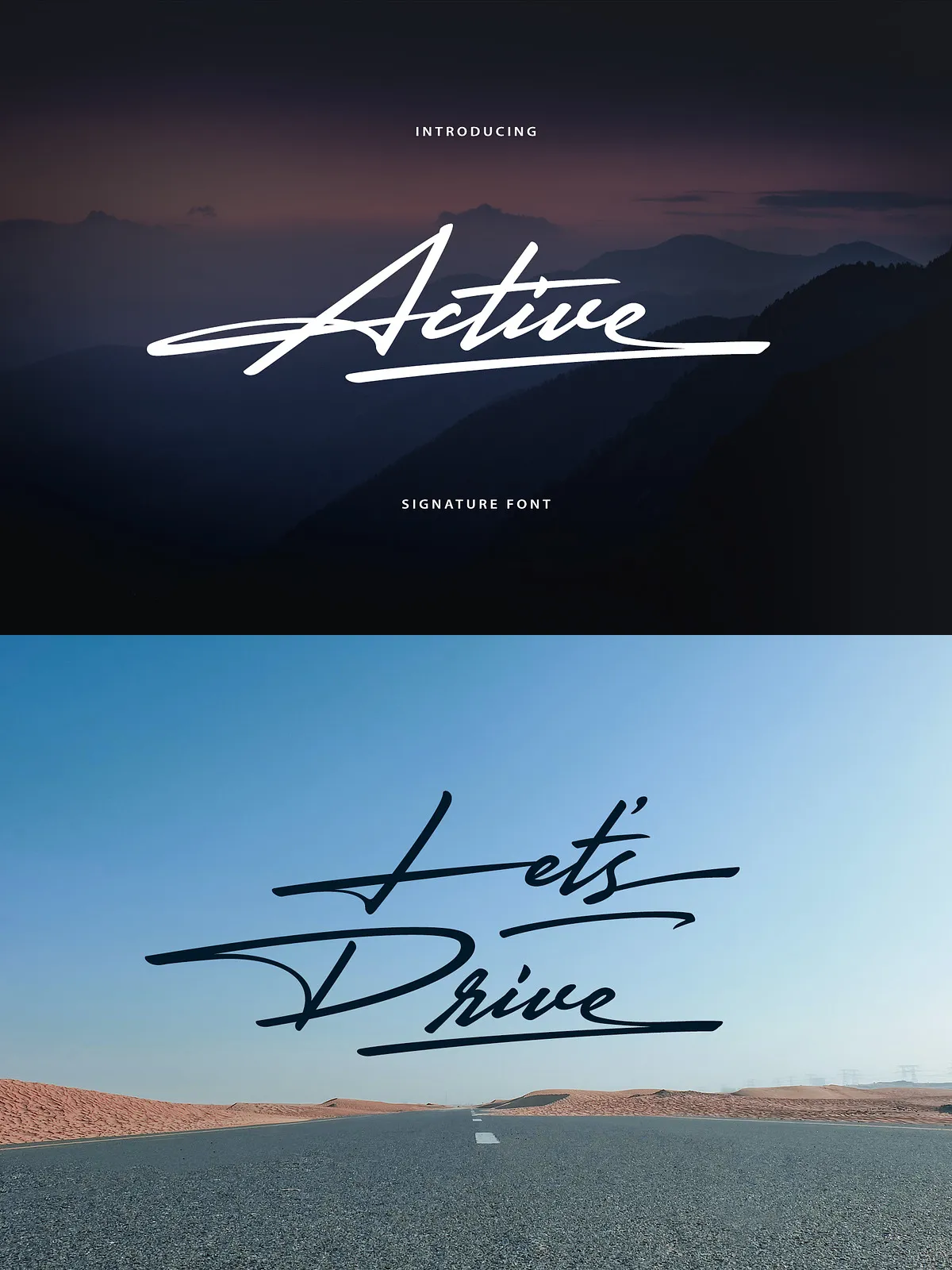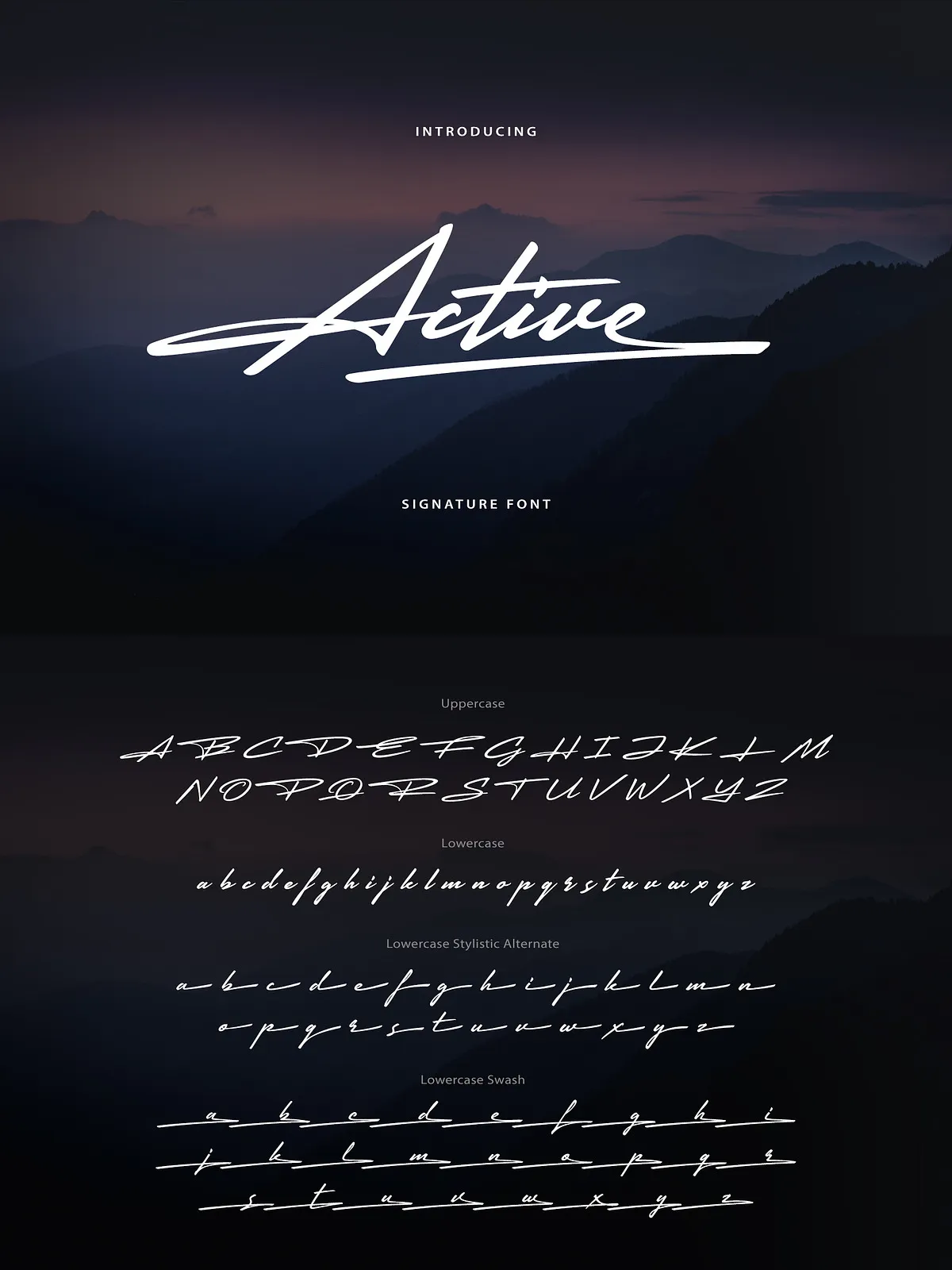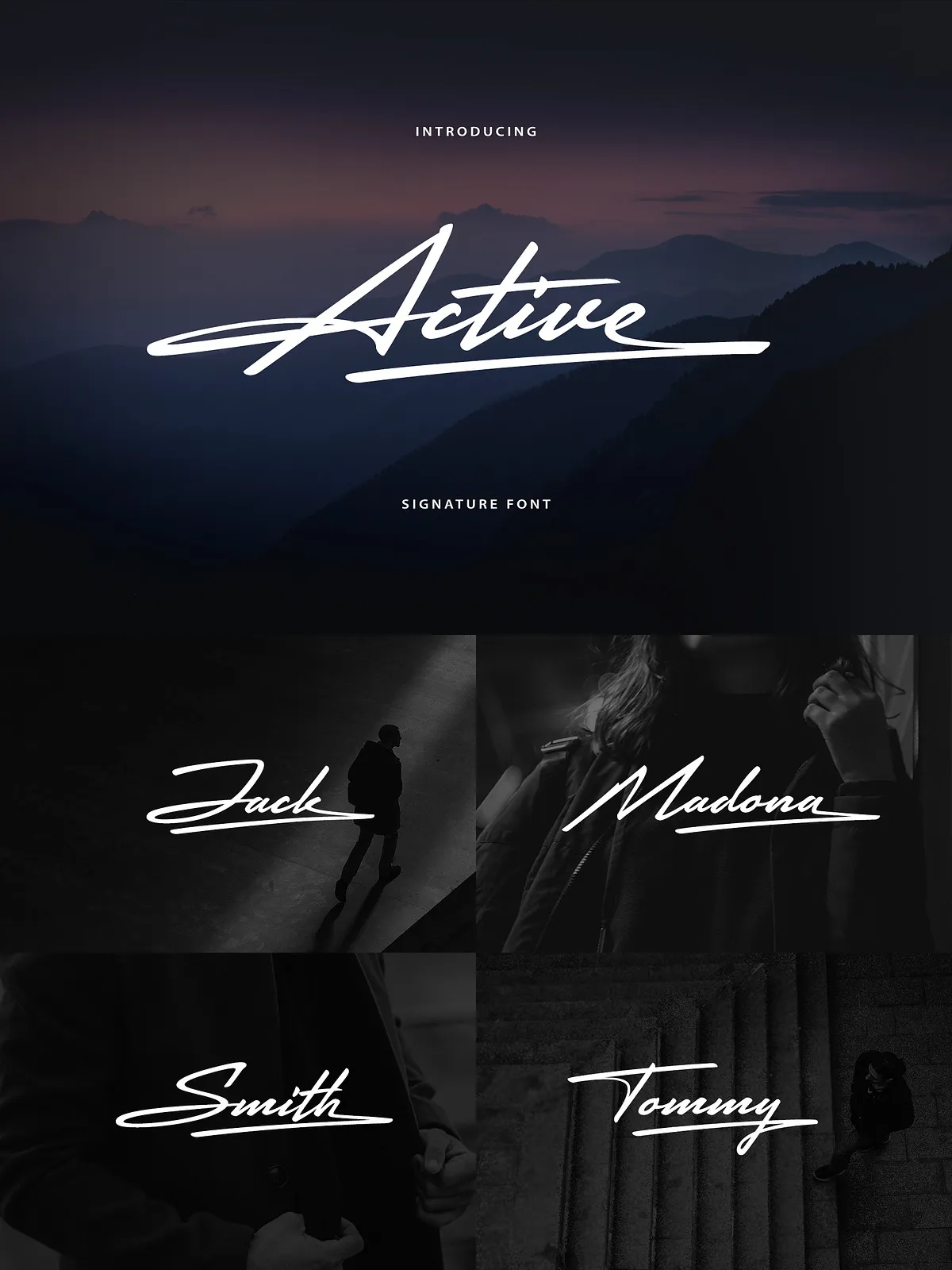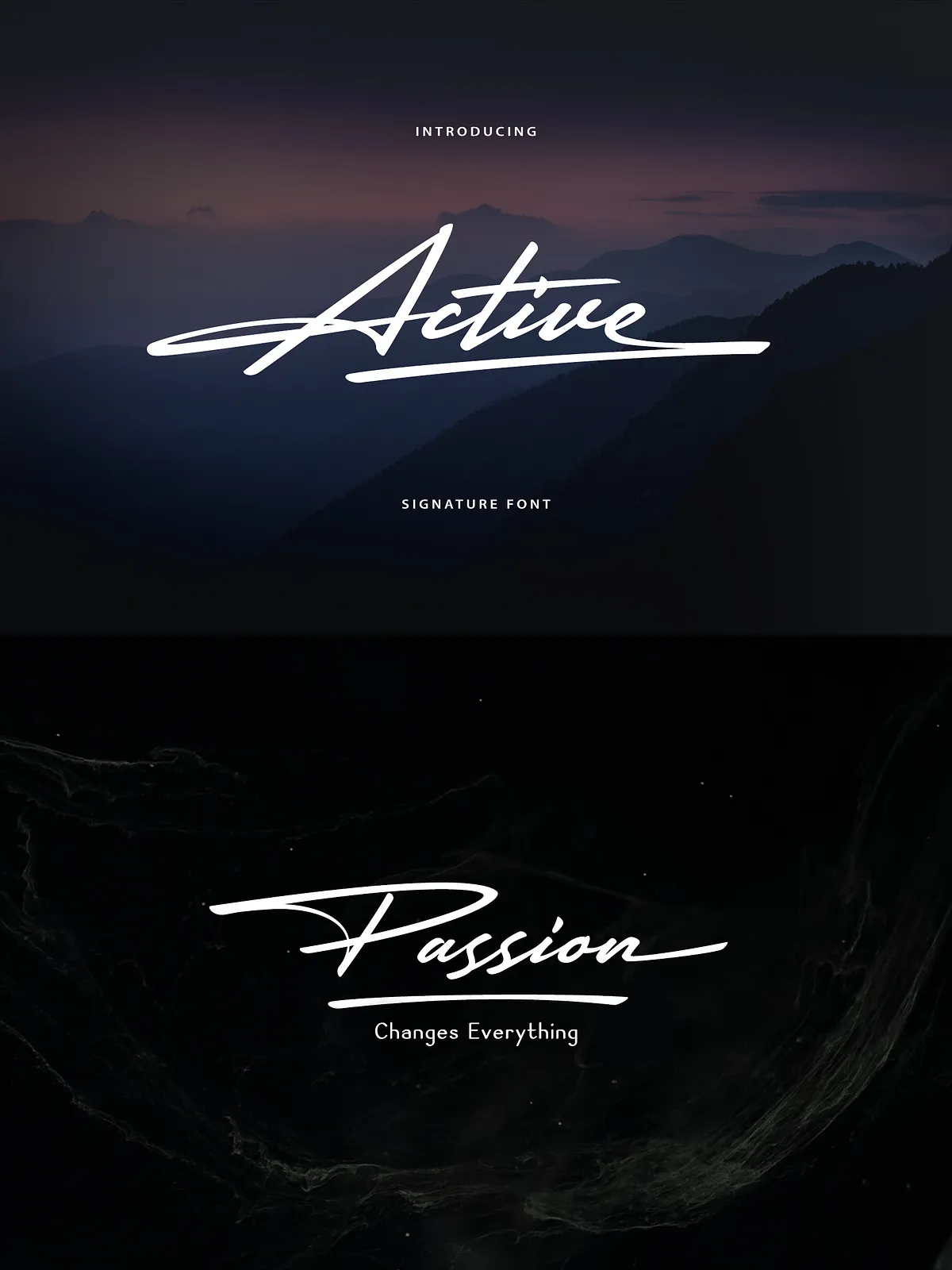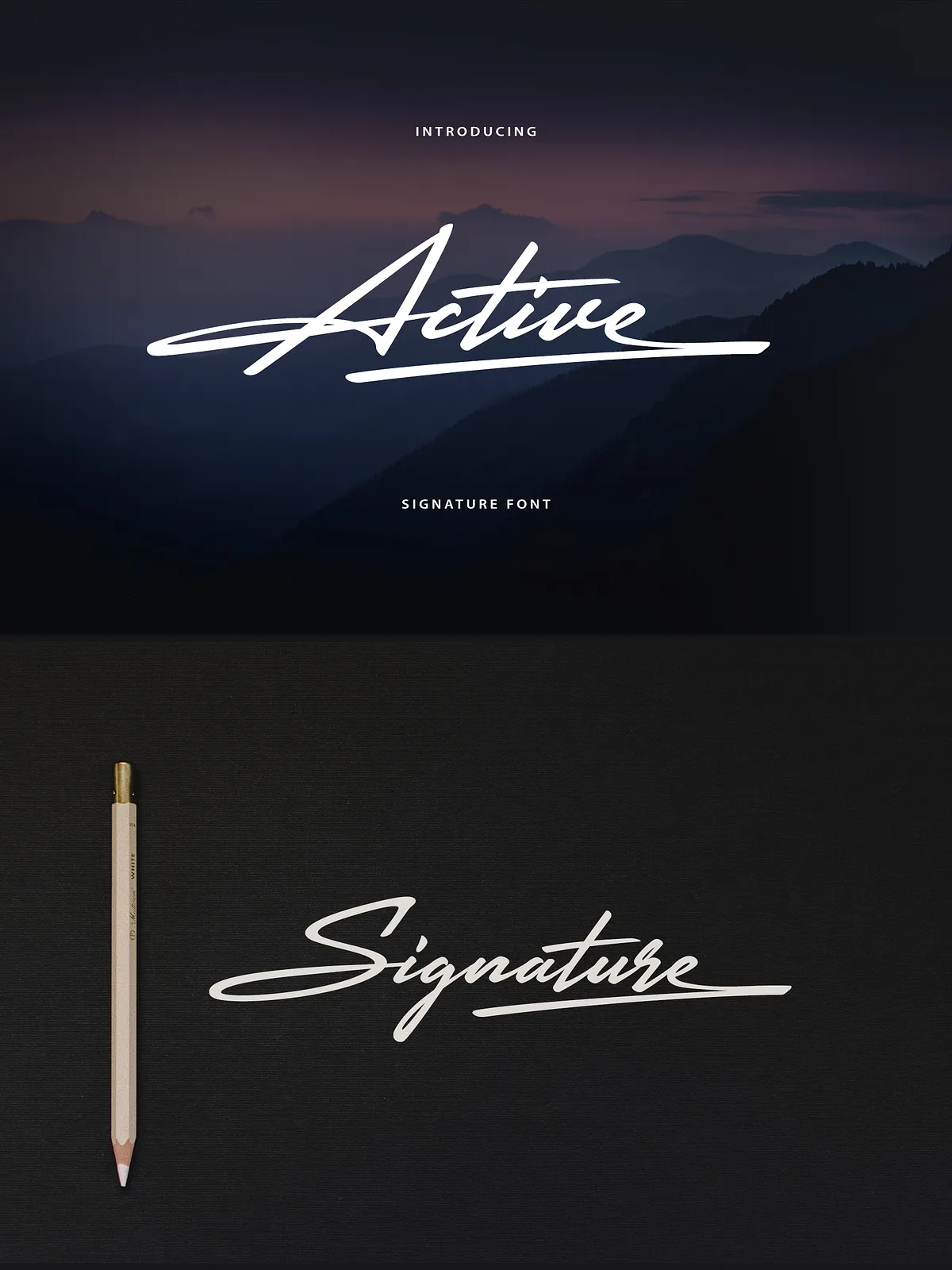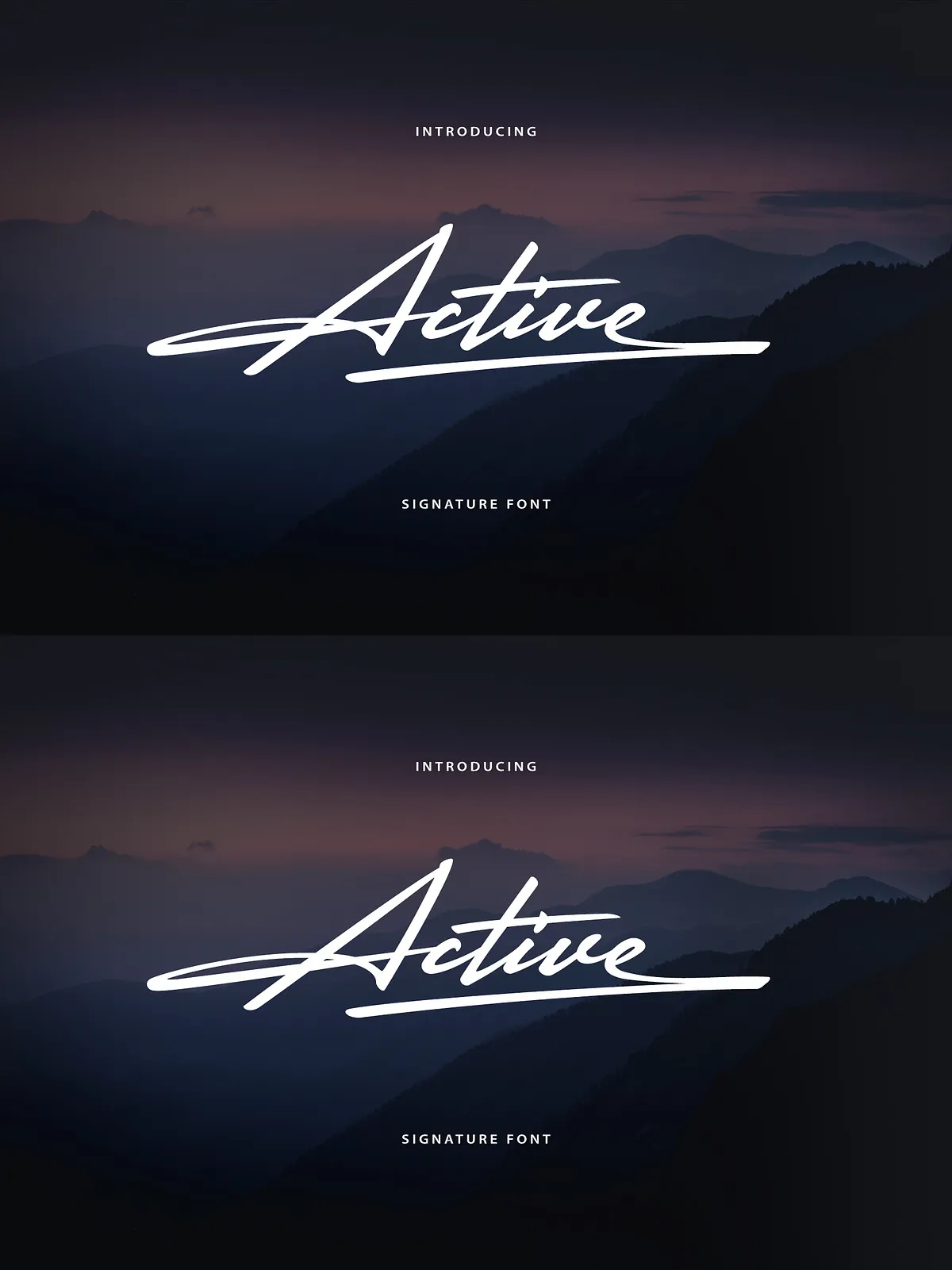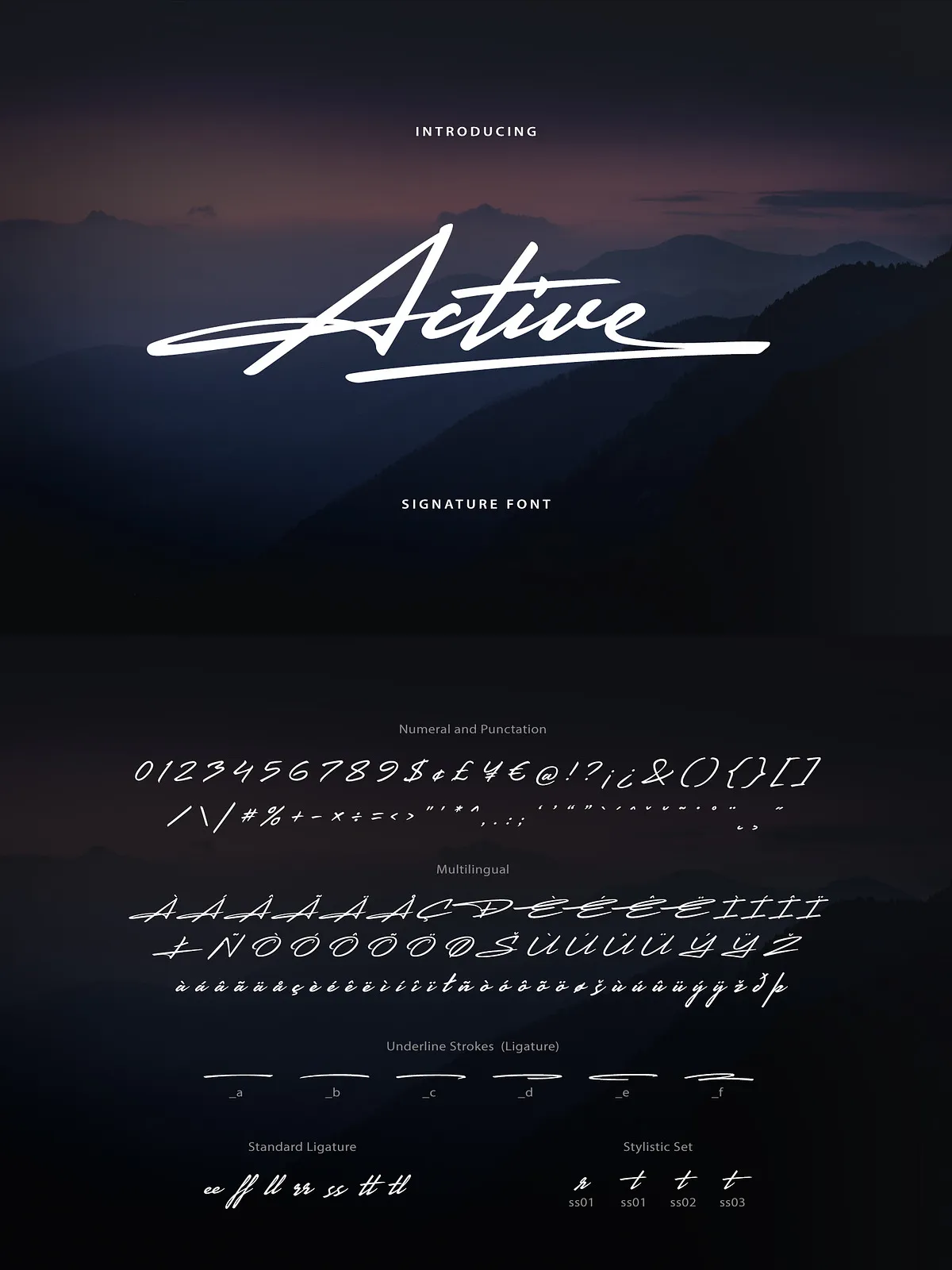
Active is a nice handwritten signature font. It gives a complete authentic feel on your text.
Total 257 glyphs available including alphabets, numerals, punctuation, ligature, stylistic alternate, swash and multilingual characters.
To type underline strokes press: _a _b _c _d _e _f (keep the ‘ligature’ button on)